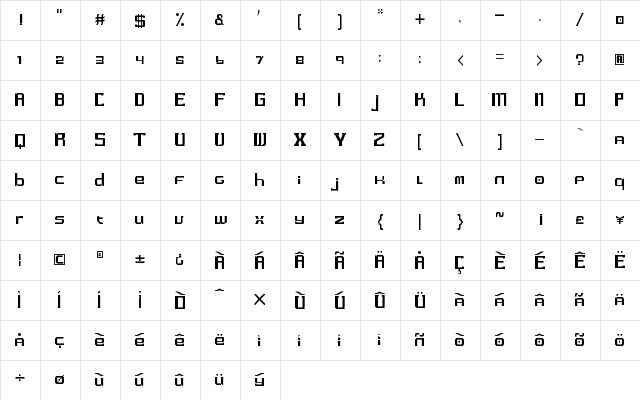
Meccano蘭01 Regular
| Designer | S鶥rin Leblanc seve |
| Year | 2010 |
Design Context for Meccano蘭01 Typeface
Meccano蘭01 offers clean, dependable letterforms without strong stylistic allegiance, making it a practical choice for designers who need flexibility.